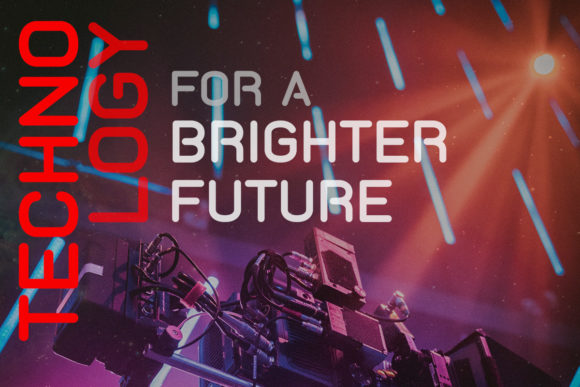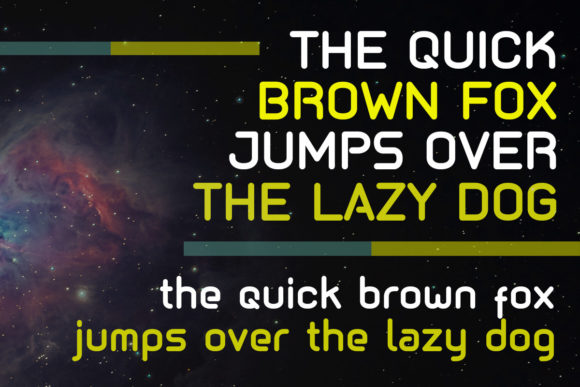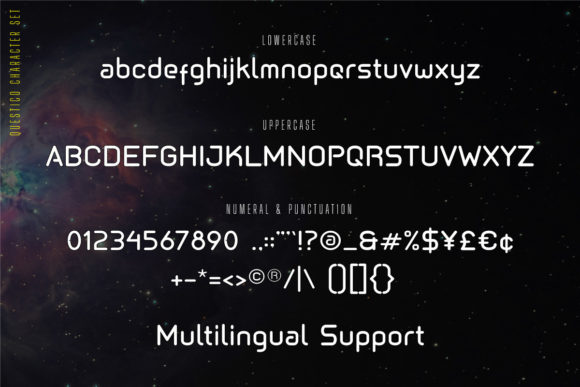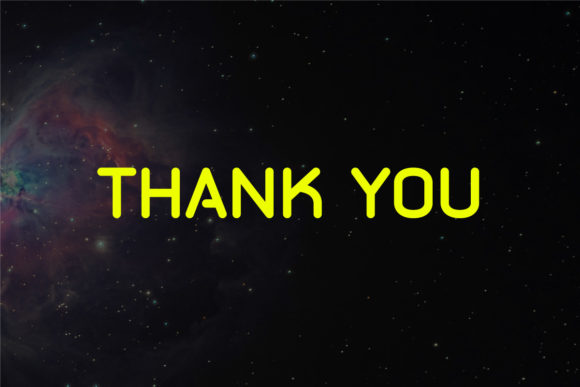
Introduction to Questico Font Font
Fonts play a crucial role in design, and the Questico Font font is a typeface that brings both character and versatility to any project. Whether you’re working on a branding project, a website, or a print design, the Questico Font font offers a unique style that can elevate your work.
Questico is a cool, modern, and techno-looking display font.
It is perfect for each of your web-related designs, space themes, sporting projects, or anything that requires strong characters Have fun with this neat font and explore its variations.
The Questico Font font is more than just a typeface – it’s a design tool that helps you communicate your message with style and clarity. Its unique character set and versatile design make it suitable for a wide range of applications, from elegant invitations to bold headlines.
With its carefully crafted letterforms and balanced proportions, the Questico Font font ensures readability and visual appeal across all mediums.
What makes Questico Font font special?
The Questico Font font stands out with its unique design, exceptional readability, and versatility across various design applications.